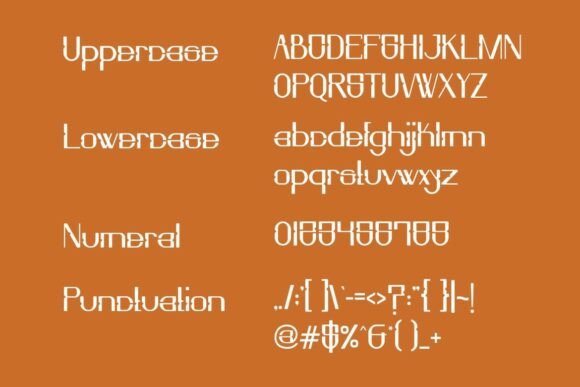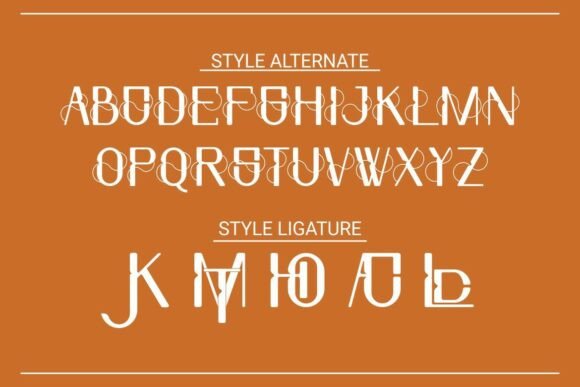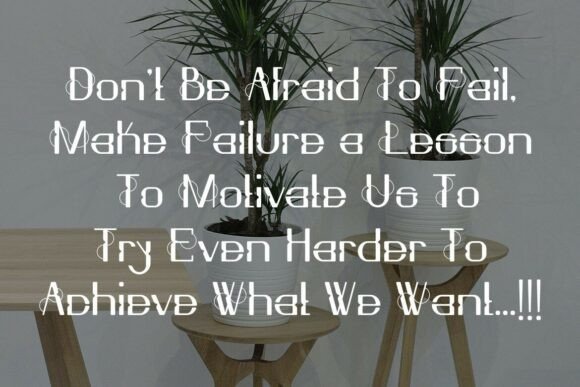
Introduction to Holijun Font
Discover the future of minimalist elegance with Holijun, a modern sans-serif display font that redefines clean lines with a unique twist.
This Holijun typeface features circular accents and soft, open curves that provide a friendly yet ultra-modern feel Perfectly suited for tech-forward interior design, luxury lifestyle branding, and innovative startup identities, the Holijun font offers a polished and β€œof-the-moment” look that is both inviting and sophisticated.
Key Features of Holijun Font
Why Choose Holijun Font?
Holijun Font offers exceptional quality and versatility, making it a valuable addition to your design toolkit. Whether you’re creating for personal projects or commercial use, Holijun Font delivers professional results.